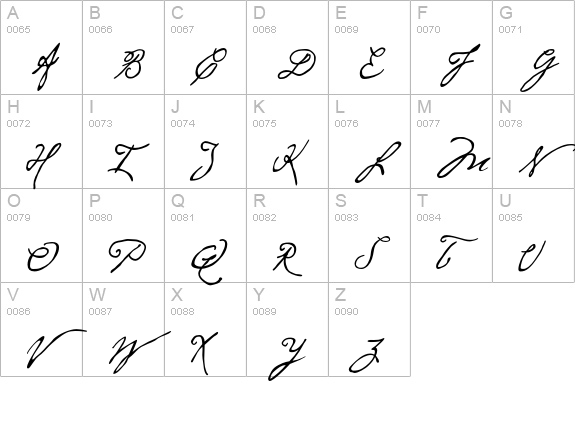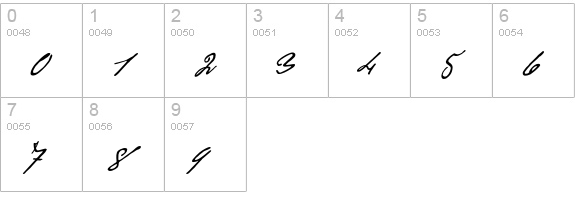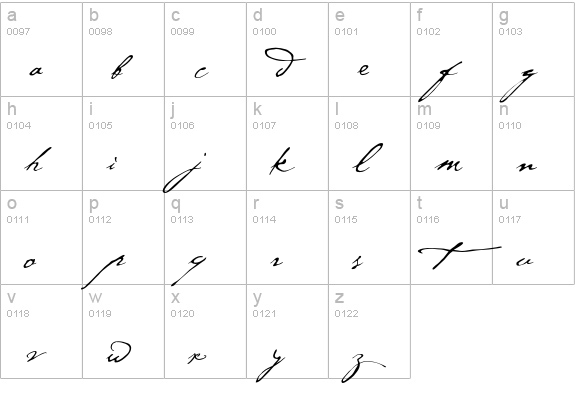
P22 Cezanne Pro Font Details
The P22 Cezanne Pro font is a stunning typeface that pays homage to the artistic genius of Paul Cezanne. Inspired by Cezanne's unique brushstrokes and attention to detail, this font captures the essence of his iconic style. With its elegant curves, delicate serifs, and artistic flair, P22 Cezanne Pro brings a touch of sophistication to any design project. Whether used for headings, logos, or body text, this font adds a timeless and refined quality that is sure to impress. One of the most remarkable aspects of P22 Cezanne Pro is that it is freely available for download at FontsMarket.com. This means that anyone can access this beautiful font and use it to elevate their designs, without any cost or restrictions. In addition to its aesthetic appeal, P22 Cezanne Pro is also highly versatile. It supports a wide range of languages and comes in various weights and styles, making it suitable for a diverse array of design applications. Whether you're creating a poster, a website, or a branding project, this font has the versatility to adapt to any creative vision. Furthermore, P22 Cezanne Pro is designed with meticulous attention to detail, ensuring optimal legibility and readability. Its clean lines and balanced proportions make it a joy to read, even in smaller sizes. Embrace the beauty of P22 Cezanne Pro and unleash your creativity with this remarkable typeface. Download it for free at FontsMarket.com and elevate your designs with the timeless elegance and artistic finesse that only P22 Cezanne Pro can deliver.